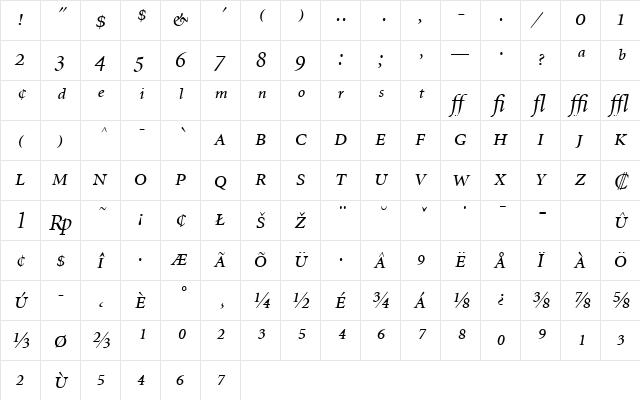
MinionExp-DisplayItalic Regular Font Preview
MinionExp-DisplayItalic Regular
Design Context for MinionExp-DisplayItalic Typeface
MinionExp-DisplayItalic is built around its visual character rather than neutral utility — its distinctive forms are designed to make an impression at display sizes. The dynamic lean of this cut emphasises speed and emphasis in any layout.